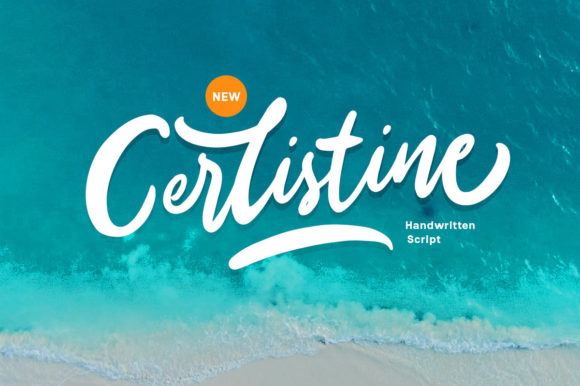
Dive into the realm of sophistication and charm with Cerlistine Font, a mesmerizing script font that embodies elegance and class. This exquisite creation by letterhend is meticulously designed to bring a touch of refinement to your digital world. Perfect for those seeking a fresh and alluring aesthetic, Cerlistine Font is your gateway to captivating designs that leave a lasting impression.
Step into the spotlight with Cerlistine Font, the ultimate font for Instagram text. Unleash your creativity and captivate your audience with visually stunning posts and stories. Let your words dance across the screen with an air of grace and sophistication. From personal branding to business promotions, Cerlistine Font elevates your online presence, making every message a work of art.
With Cerlistine Font, your designs transcend the ordinary and enter the realm of the extraordinary. Whether you're a seasoned designer or just starting your creative journey, this font is your secret weapon to create designs that resonate with your audience. Its delicate strokes and flowing curves add a touch of magic to invitations, logos, branding materials, and any project that demands attention.
Cerlistine Font is not just a font; it's an experience. Its enchanting personality breathes life into your words, turning them into visual masterpieces. Each letter is carefully crafted to evoke emotions, leaving a lasting impact on your readers. Experience the power of a font that speaks volumes, conveying messages of love, joy, and elegance.
So why settle for ordinary when you can embrace the extraordinary? Choose Cerlistine Font today and embark on a journey of creative exploration. Let your designs shine brighter than ever before, leaving a trail of admiration and envy in your wake. Stand out from the crowd and make a statement with Cerlistine Font, the font that transforms words into art.